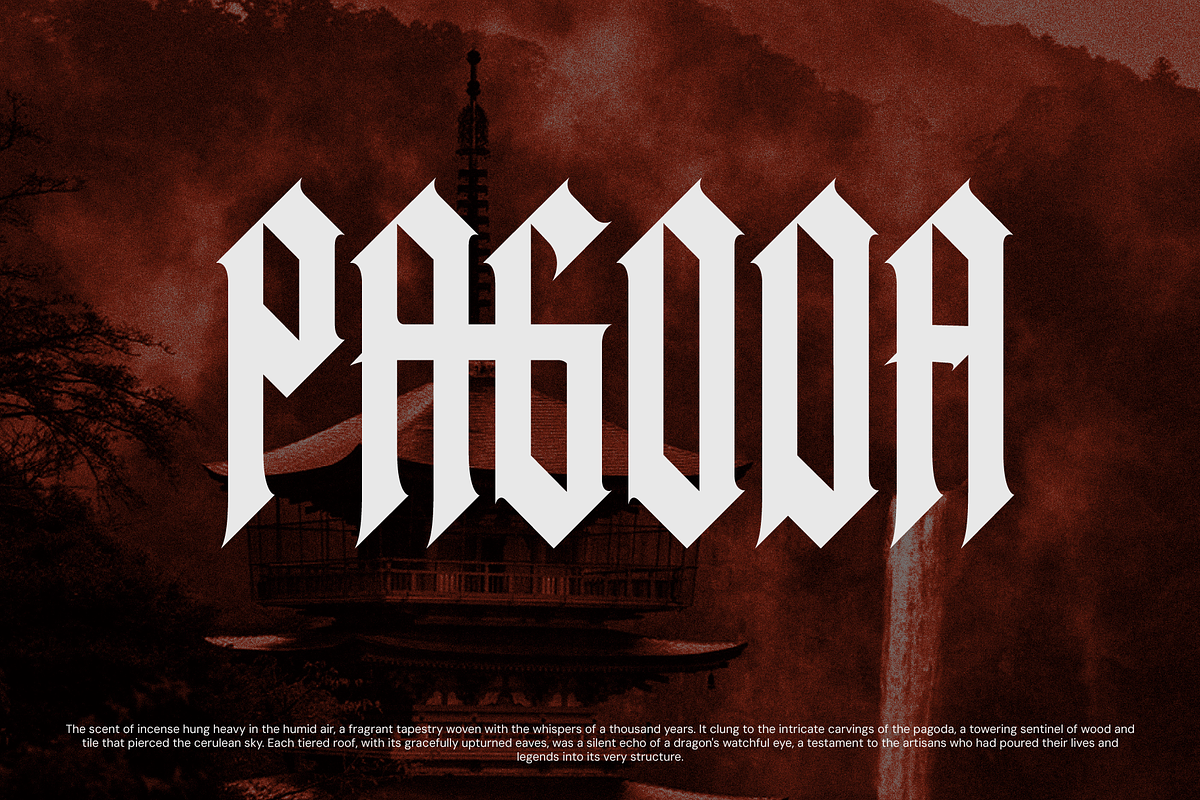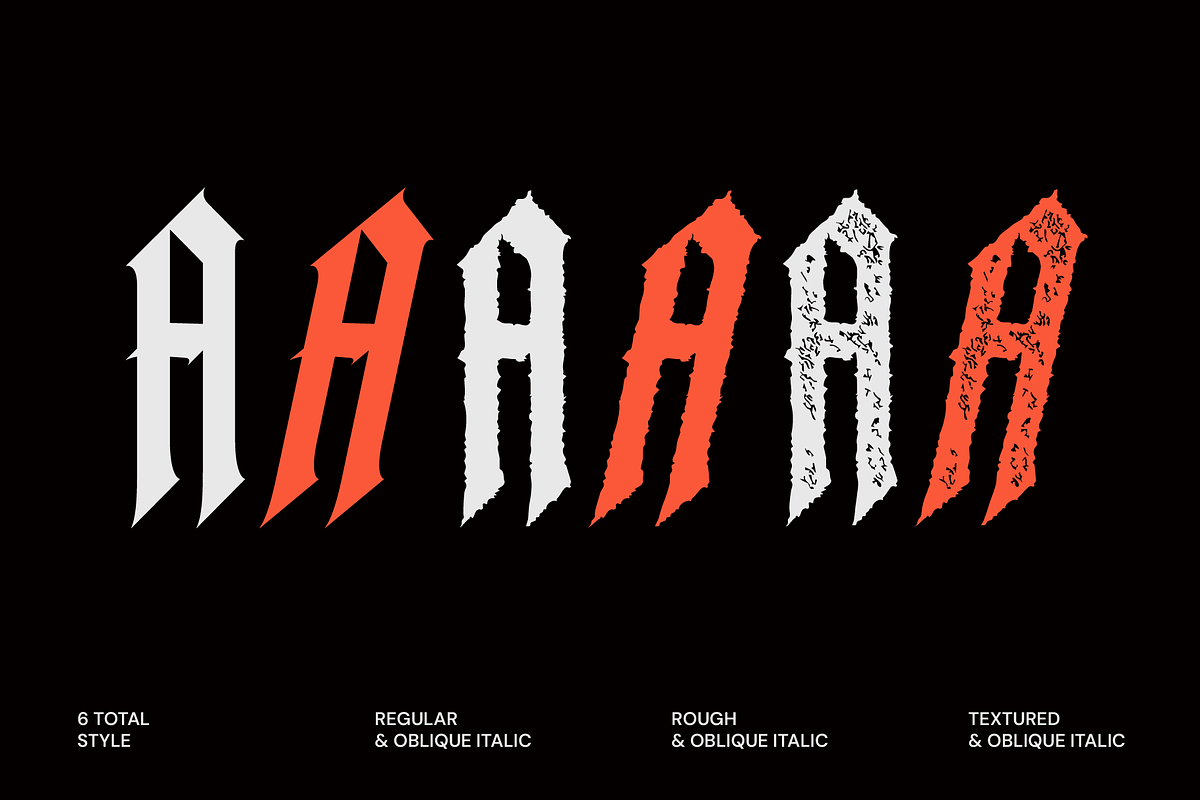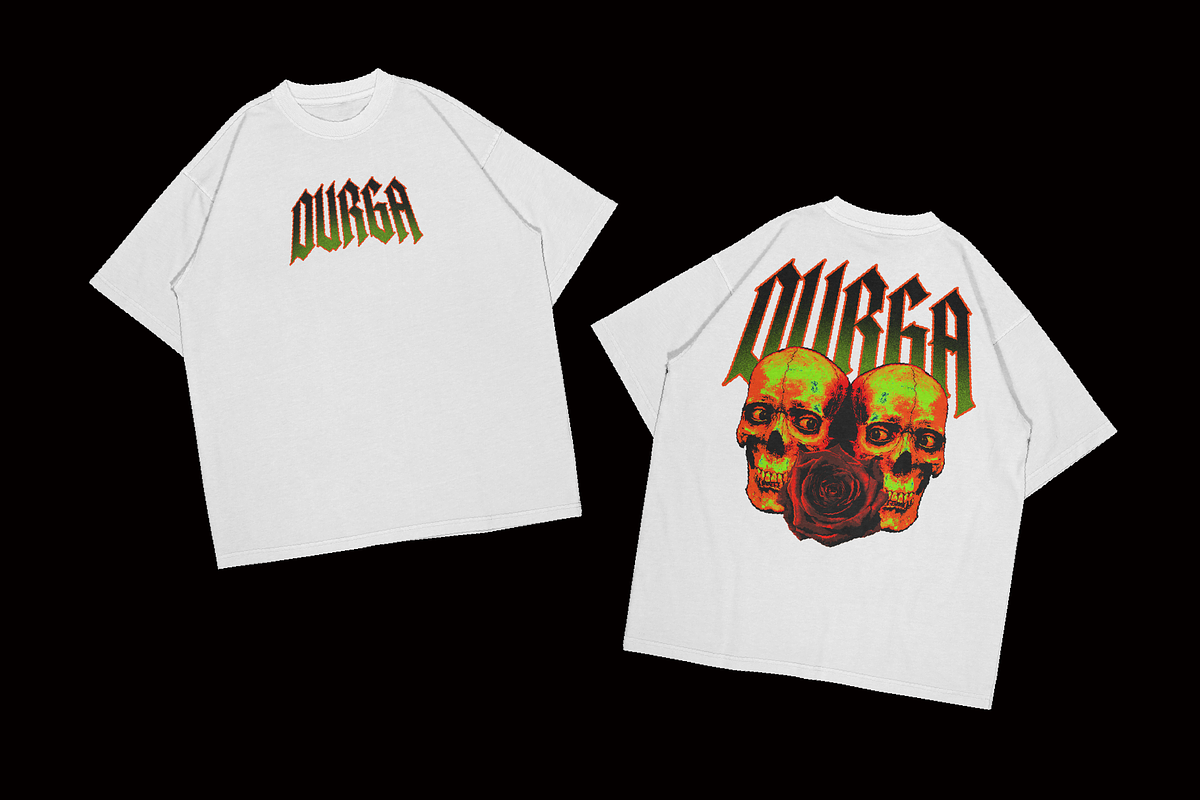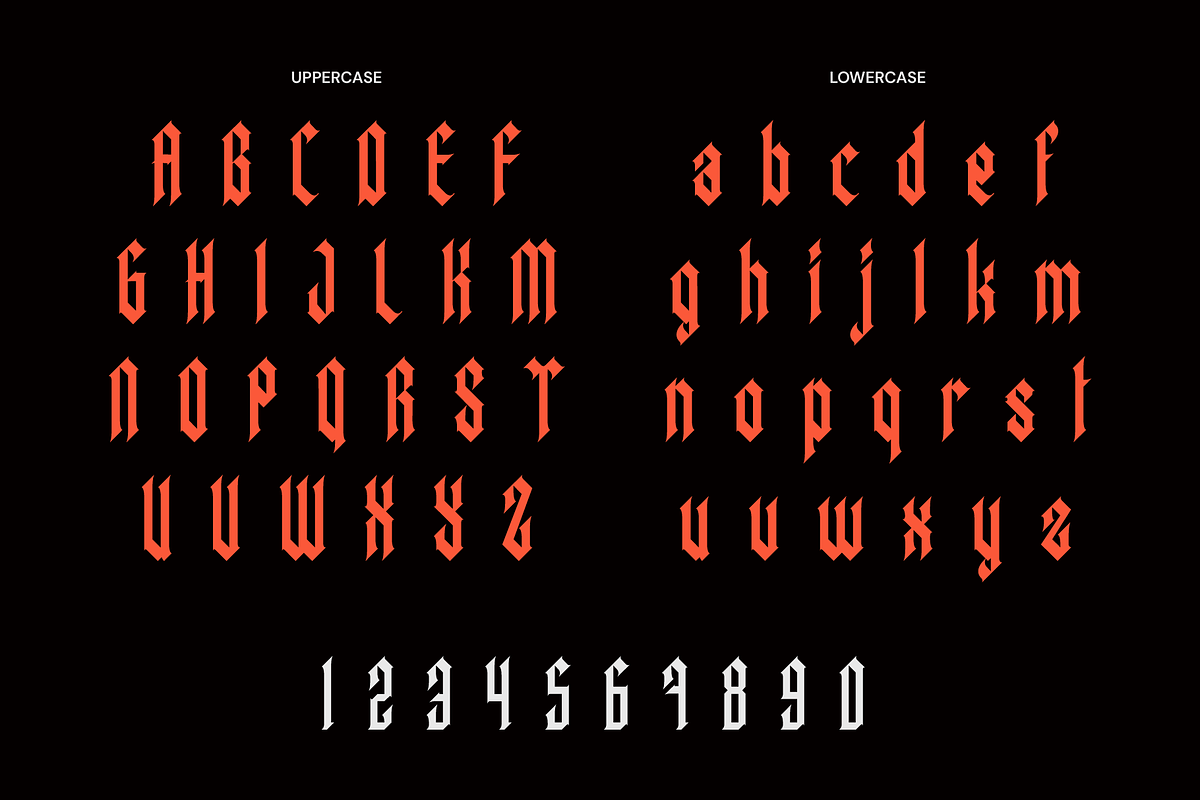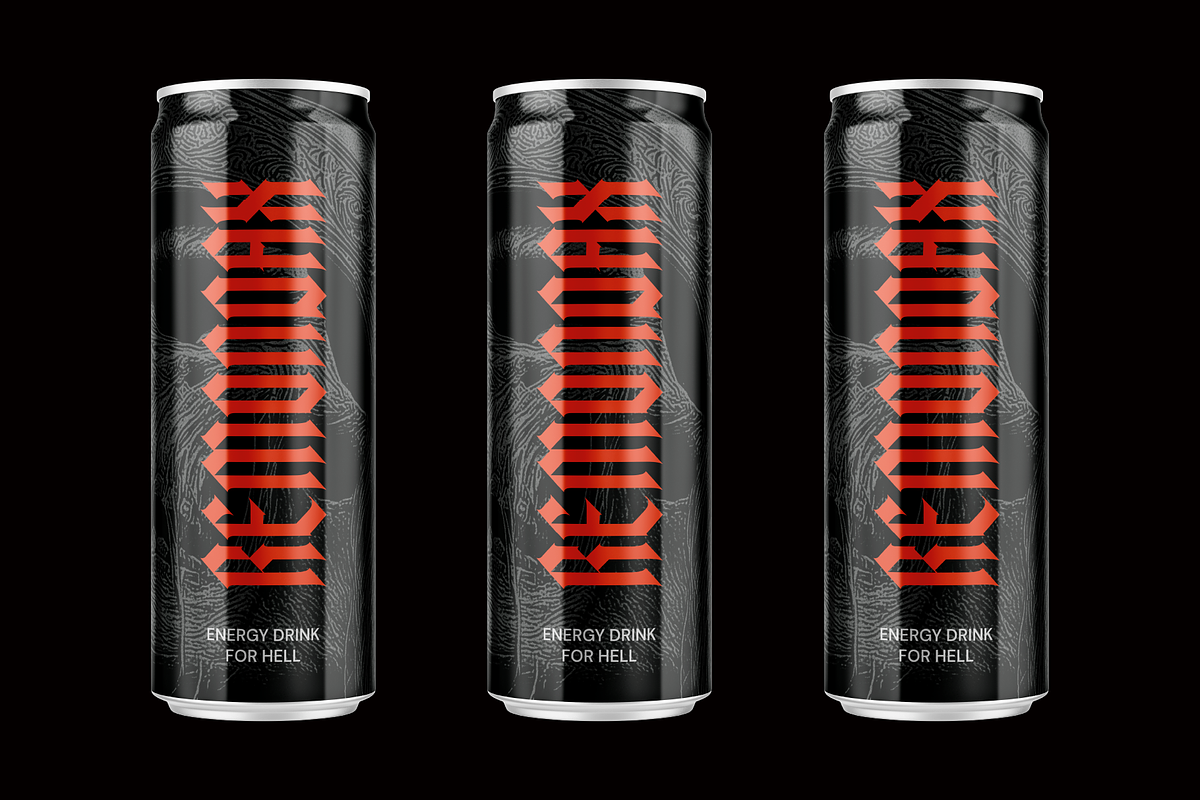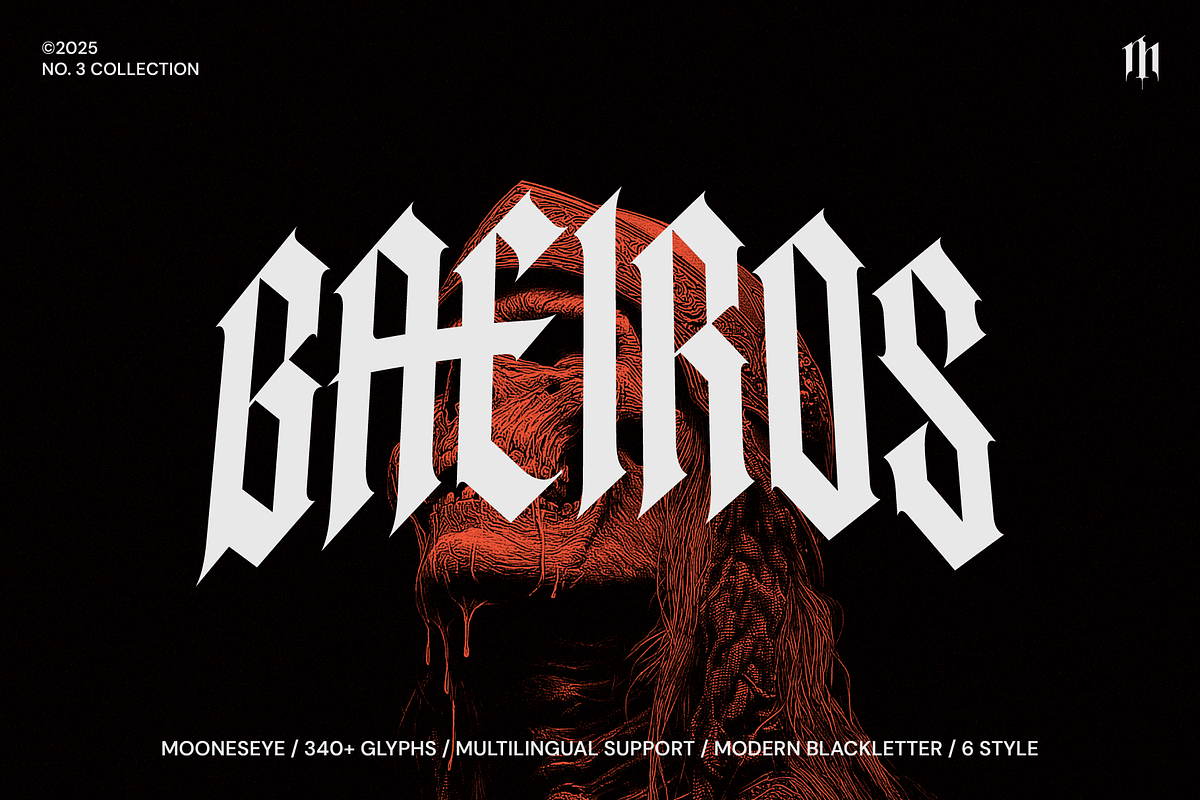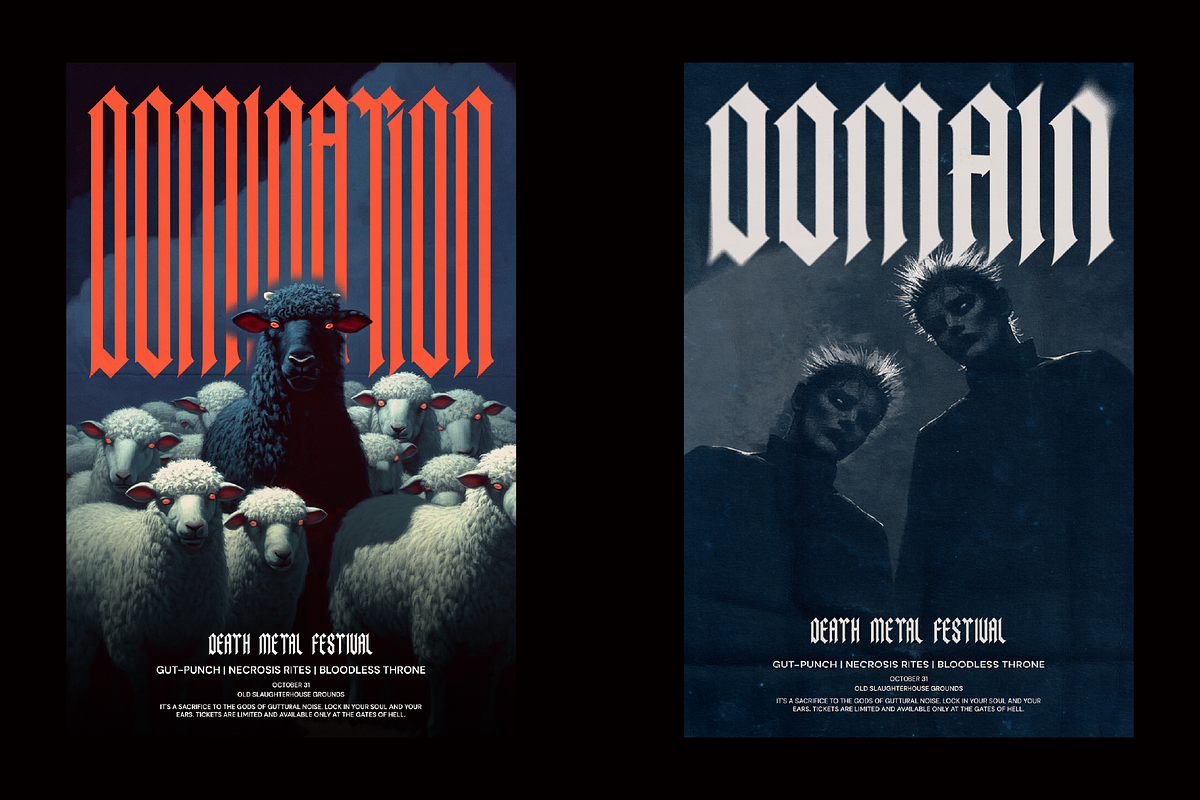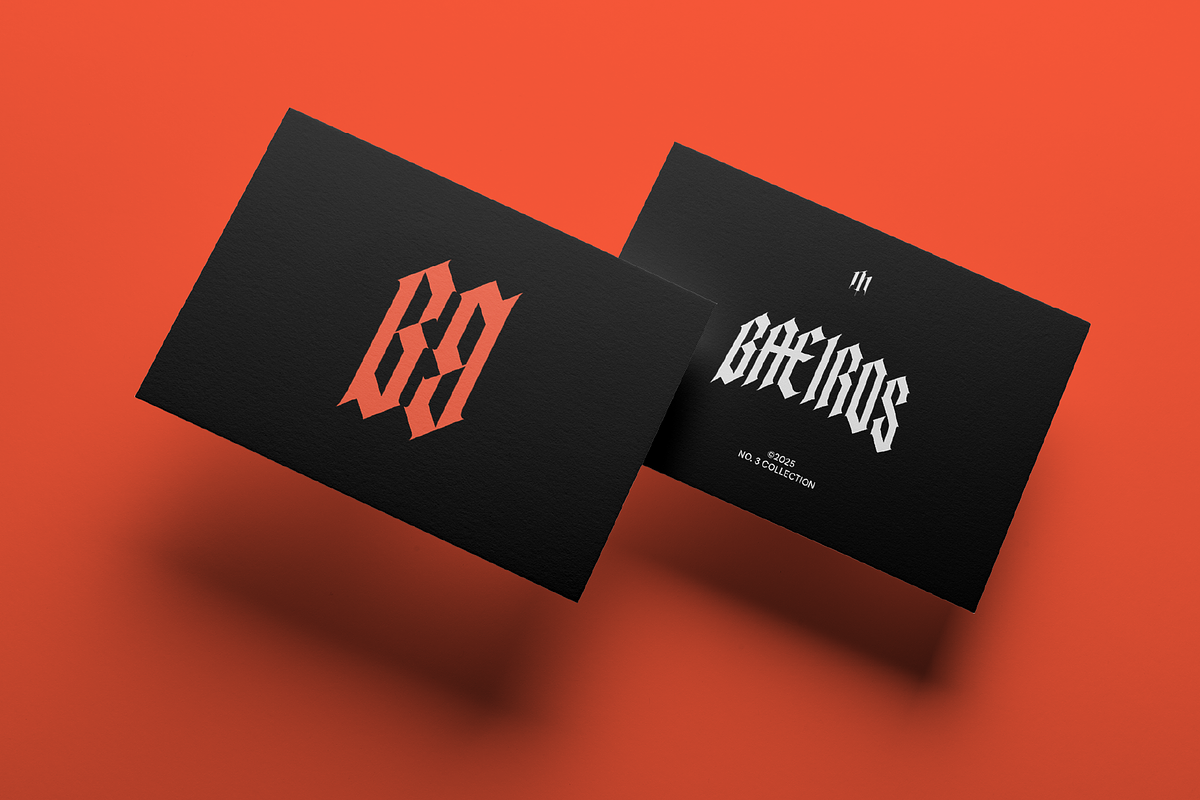
Baeiros - Modern Blackletter Font
Baeiros is a powerful modern blackletter font designed to make an unforgettable statement. It takes the classic, gothic style and gives it a clean, geometric update, making it perfect for today’s boldest designs.
This isn't just one font—it's a complete toolkit for branding. With six distinct styles, you can choose from a sharp and clean Regular look, a gritty Rough style, or an authentic Textured vibe, all with matching oblique italics. This versatility lets you create a consistent yet dynamic visual identity for any project, from a sleek logo to a vintage-inspired poster.
Perfect for brands that embrace a dark, edgy, or rebellious spirit. Whether you're designing for streetwear, a metal band, or a craft brewery, Baeiros delivers a look that is both sophisticated and badass. Get ready to create something iconic.
Suitable For
- T-shirt and apparel design for streetwear brands
- Album art and concert posters for music genres like rock and metal
- Branding for energy drinks, craft beer, or spirits
- Tattoo designs and graphic illustrations
- Bold logotypes for rebellious brands
- YouTube channel art or Twitch stream graphics
- Packaging for high-end, masculine products